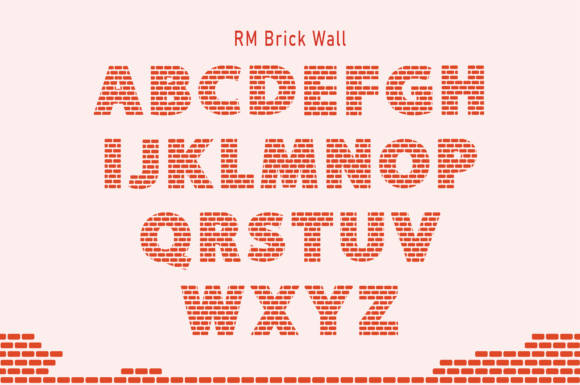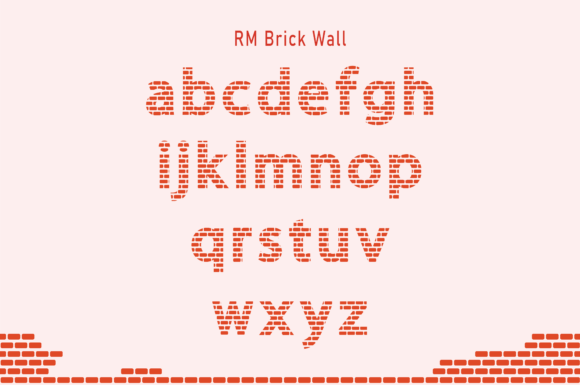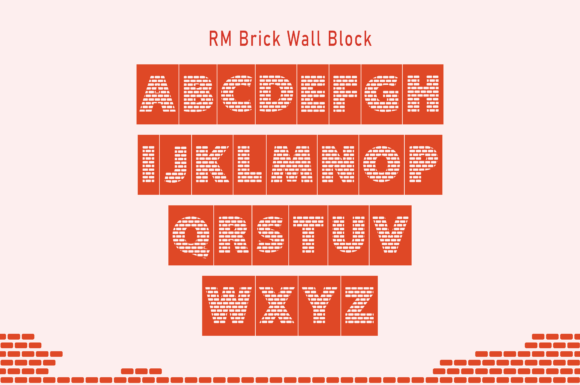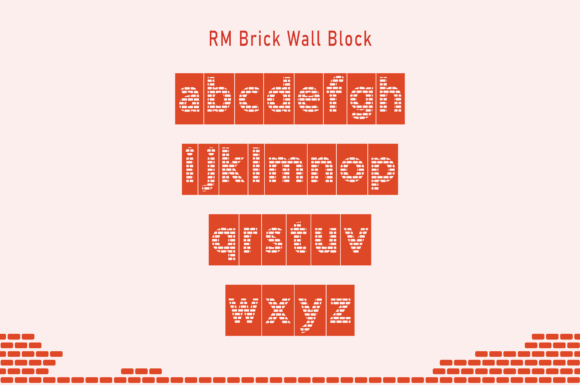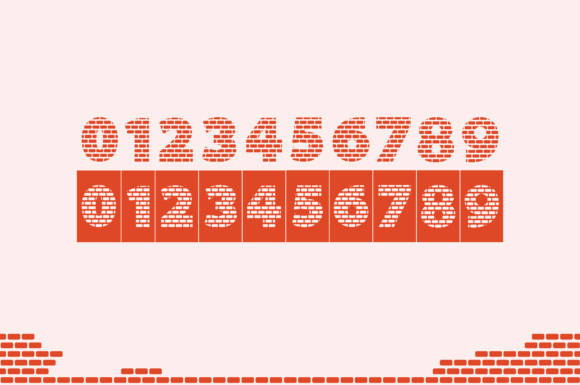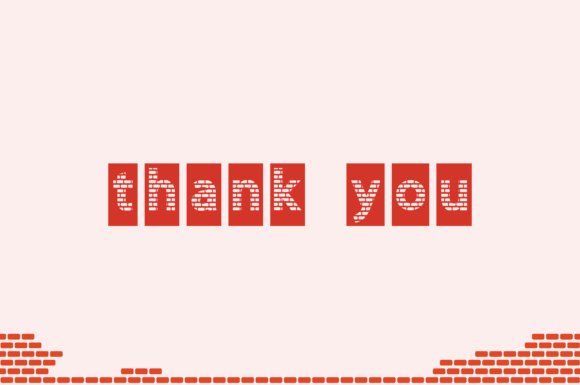
Where Creativity Meets Construction: Unleashing the Power of the Brick Wall Font
You’ve finally got that perfect idea – a design concept that you know will make a statement, but you’re struggling to find the right font to bring it to life. That’s when the magic happens, and you stumble upon the Brick Wall Font. This incredible construction font is designed to help you build your ideas, and with its dual-style typeface, you can infuse both building and engineering concepts into your work.
Whether you’re a designer looking for a versatile and aesthetically pleasing font, or simply someone who wants to add a personal touch to their creations, the Brick Wall Font is the perfect tool for you. With its seamless blend of functionality and style, it’s no wonder this font is a favorite among designers and creatives alike.
Brick Wall Font Key Features
- Unique Characteristic: The Brick Wall Font features a unique, distressed texture that gives it a vintage, industrial feel, making it perfect for designs that require a rugged, edgy aesthetic.
- Font Style: The font is available in both uppercase and lowercase letters, with a range of special characters and punctuation marks, making it suitable for a variety of applications, including signage, logos, and body text.
Brick Wall Font Review
Overall, I’m quite impressed with the Brick Wall Font. It’s a great choice for those looking for a unique, distressed font.
- ✨ Unique texture and distressed effect
- ✨ Versatile – suitable for various design projects, from logos to posters
- ✨ High-quality vector files, making it easy to scale and customize
- ⚠️ Limited character set – may not be ideal for extended text content
- ⚠️ Some characters may not display correctly in certain fonts or sizes
In terms of overall impression, I think the Brick Wall Font is a great addition to any designer’s toolkit. While it has its limitations, the unique texture and distressed effect make it a standout choice for those looking to add some personality to their designs. Just be mindful of the character set and potential display issues, and you’ll be good to go.
The Brick Wall Font is ideal for creating rustic, vintage, or distressed text effects. It’s commonly used in wedding invitations, advertising materials, and social media graphics. To get the most out of the Brick Wall Font, experiment with different font sizes, colors, and textures to create unique and eye-catching designs.